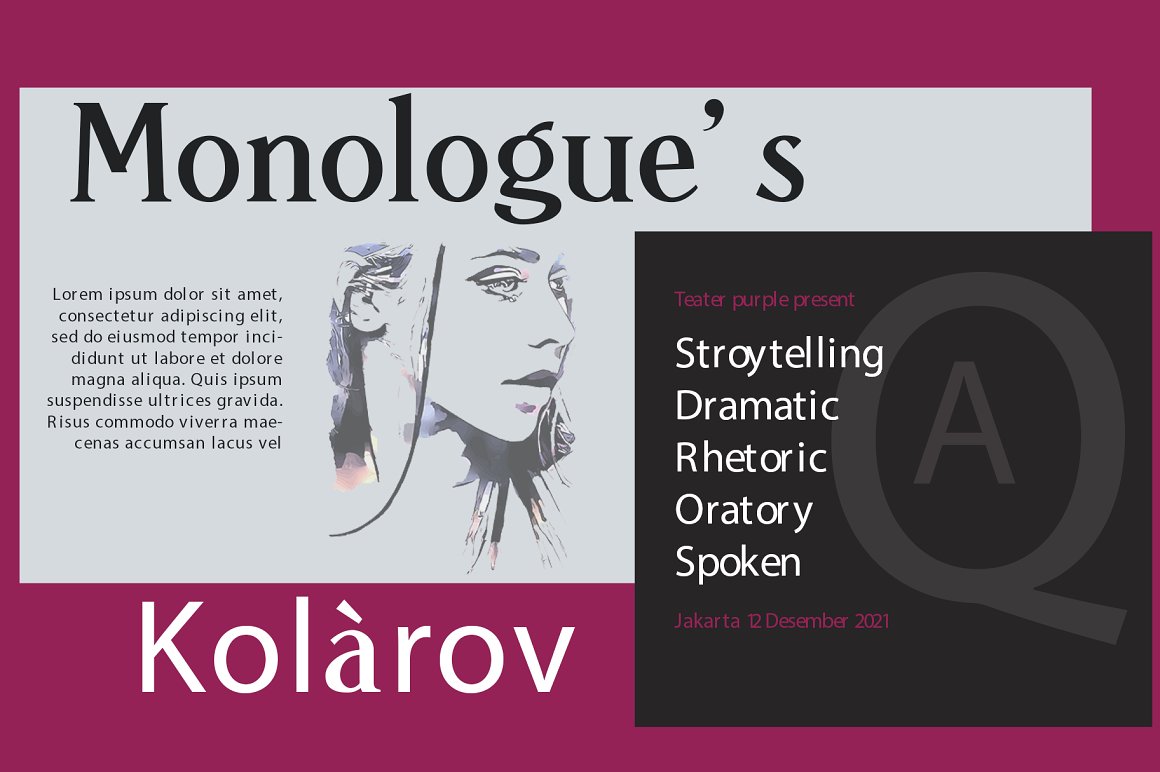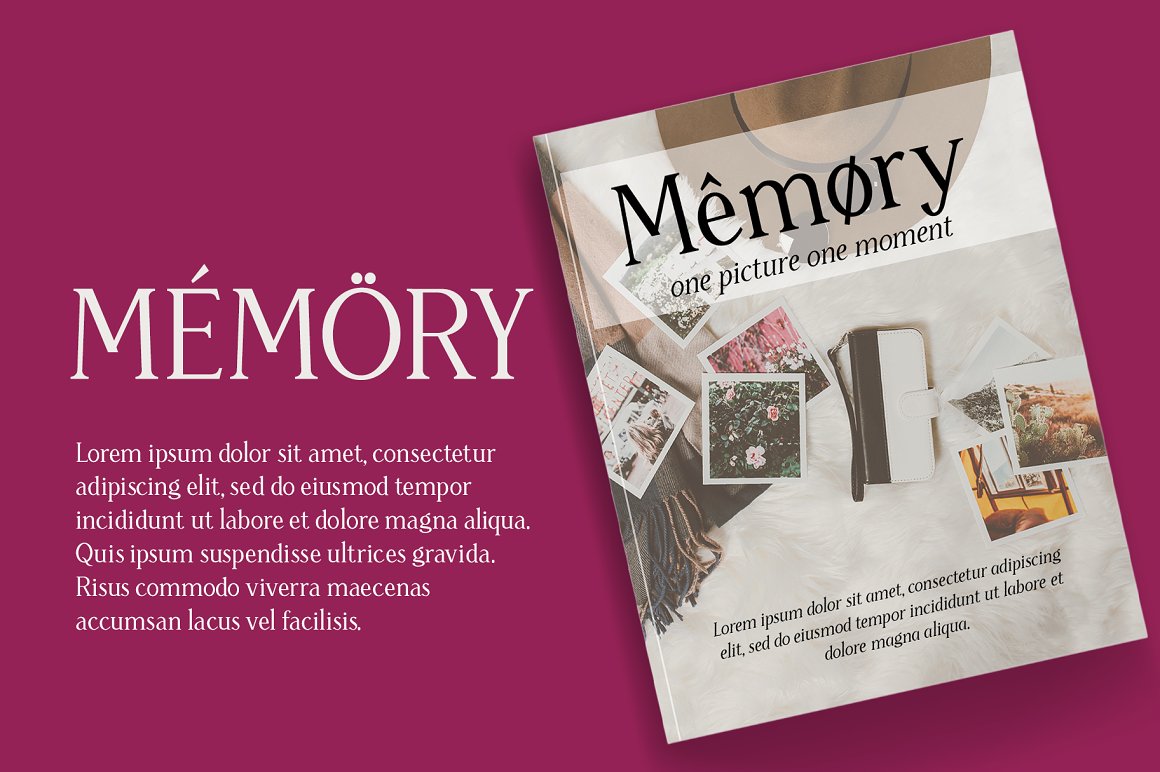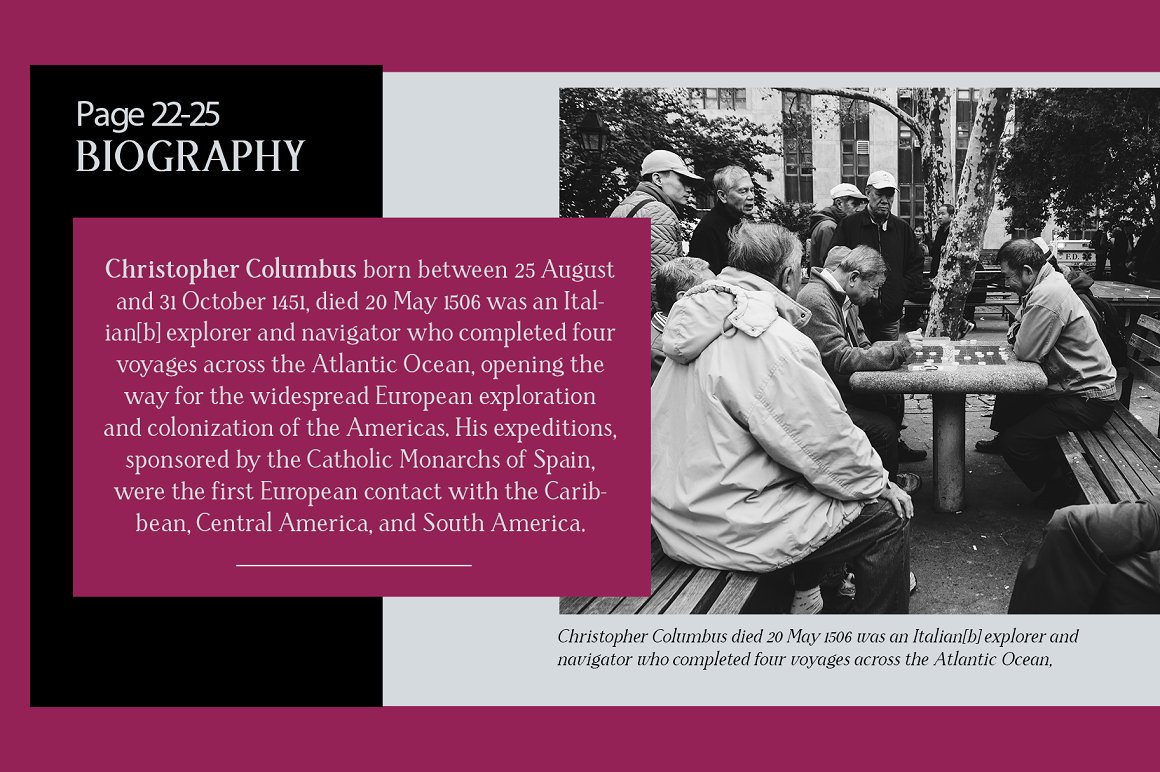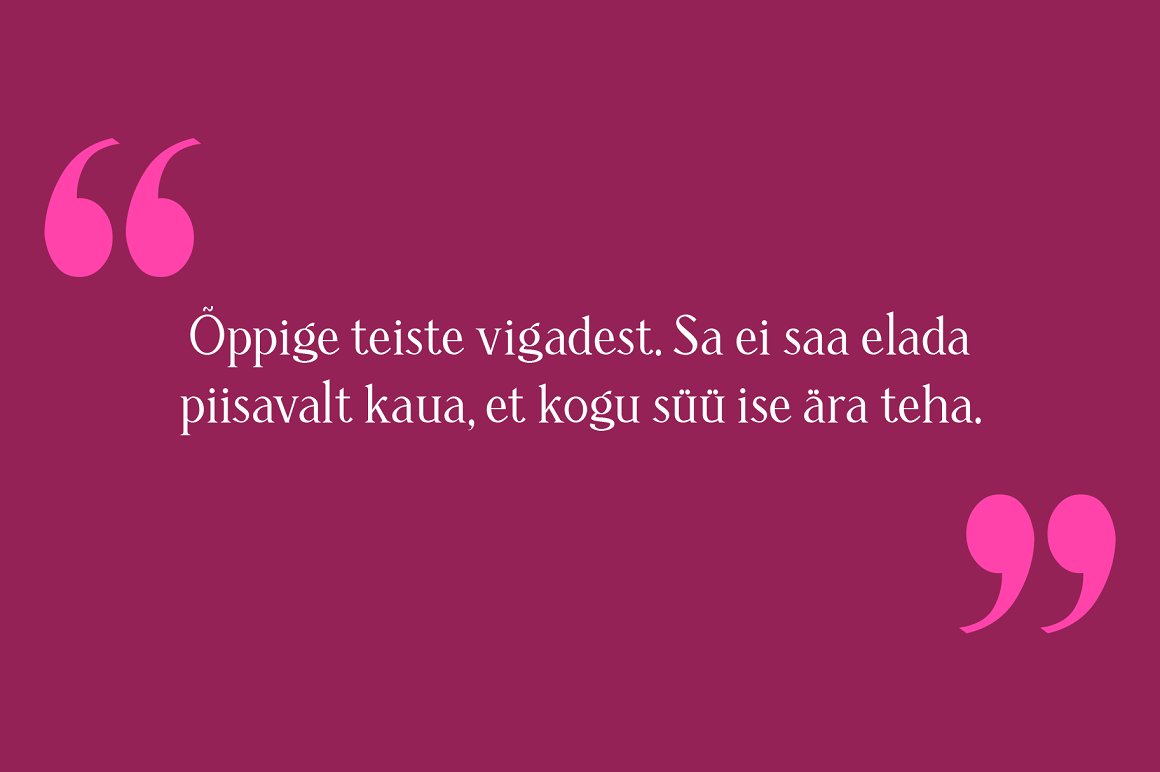
Journal Republica Serif Font
This font is a serif typeface inspired by the beauty of classic serif and calligraphic style, fused with modern appeal to blend with modern needs.